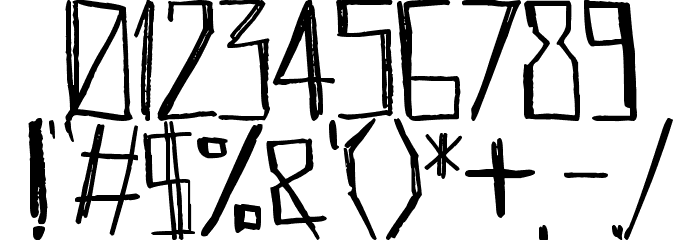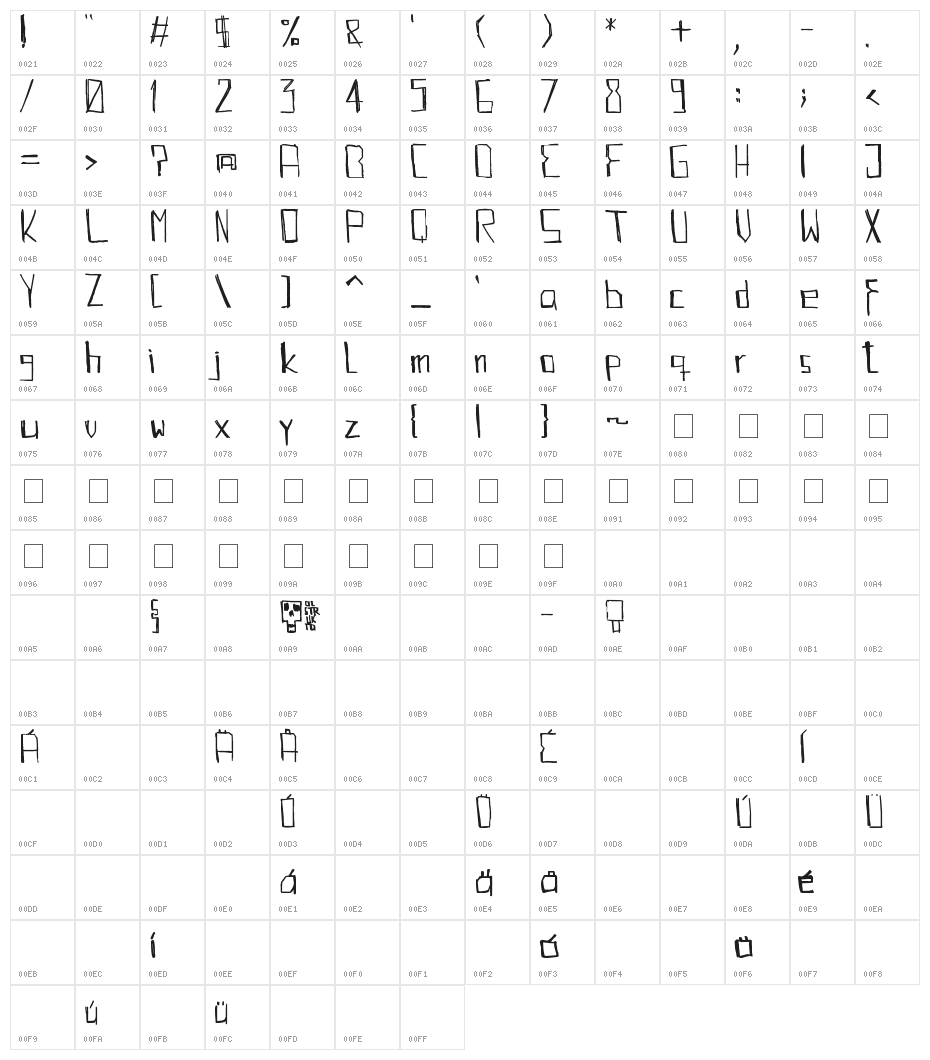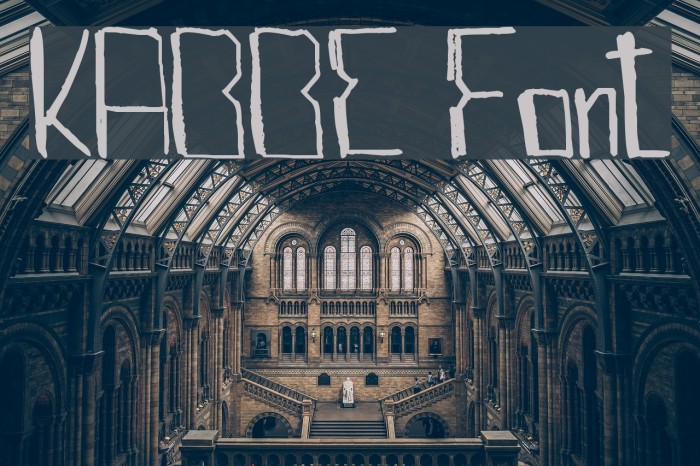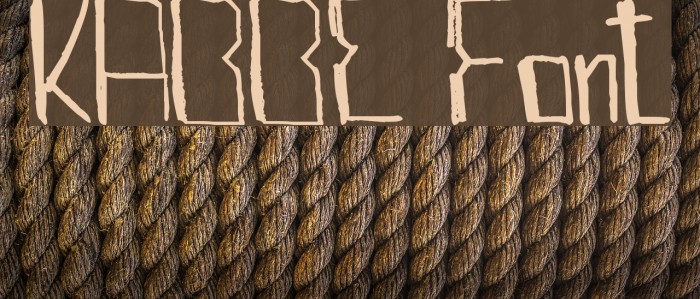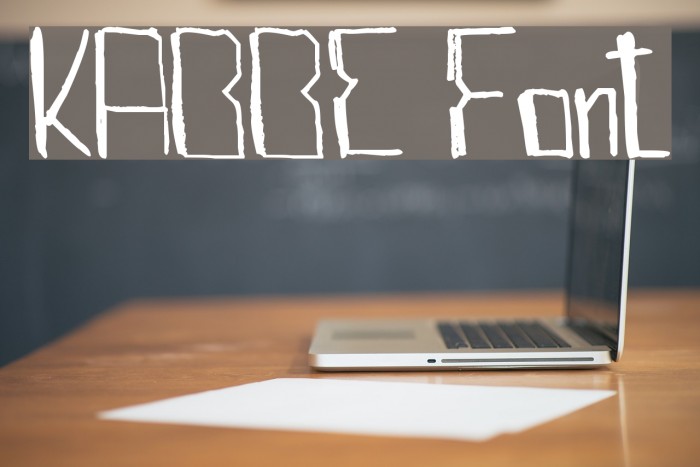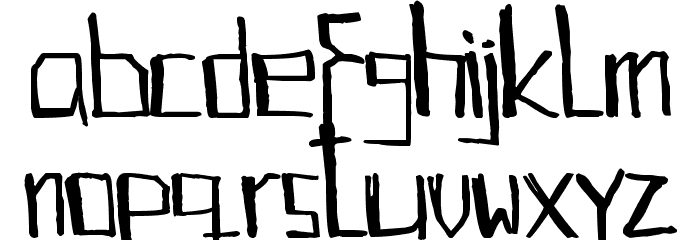
KABBE Font
KABBE Description
This font features a hand-drawn, sketch-like appearance with irregular and uneven strokes that give it a raw, artistic feel. The characters are outlined with a rough texture, adding to the handmade aesthetic. The uppercase and lowercase letters maintain a consistent style, with angular and geometric shapes that create a sense of edginess. Numbers and special characters follow the same design principles, ensuring uniformity across the font. The overall look is bold and expressive, making it suitable for projects that require a standout, unconventional typeface.
| Use Case | Headlines, Posters, Artistic Designs |
| Proposed Projects | Ideal for artistic projects, posters, album covers, and any design requiring a bold, handmade aesthetic. |